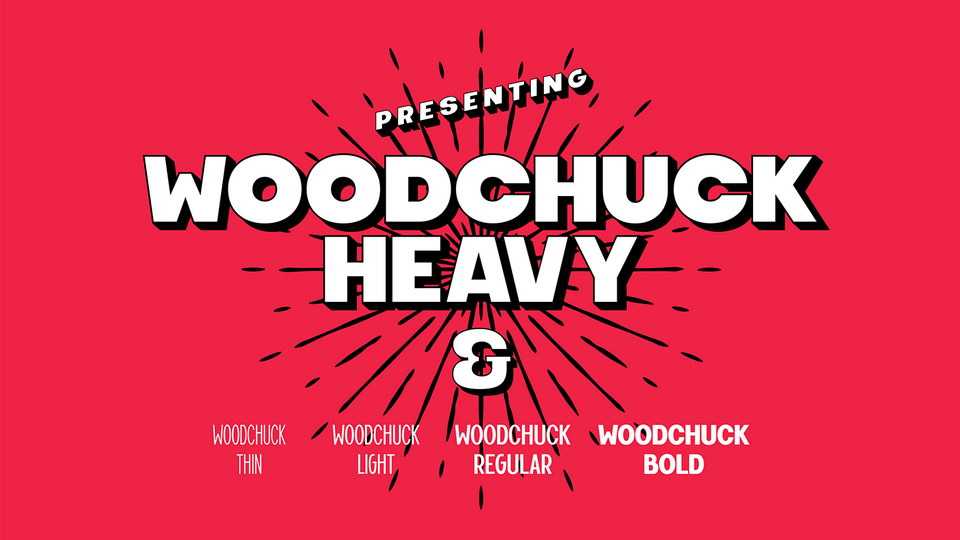
Download Woodchuck typeface, a modern, not-so-serious sans serif font family in five weights. Woodchuck is great for any situation but was specially made to shine in outstading headlines.
Designer: Rafael Vecchio